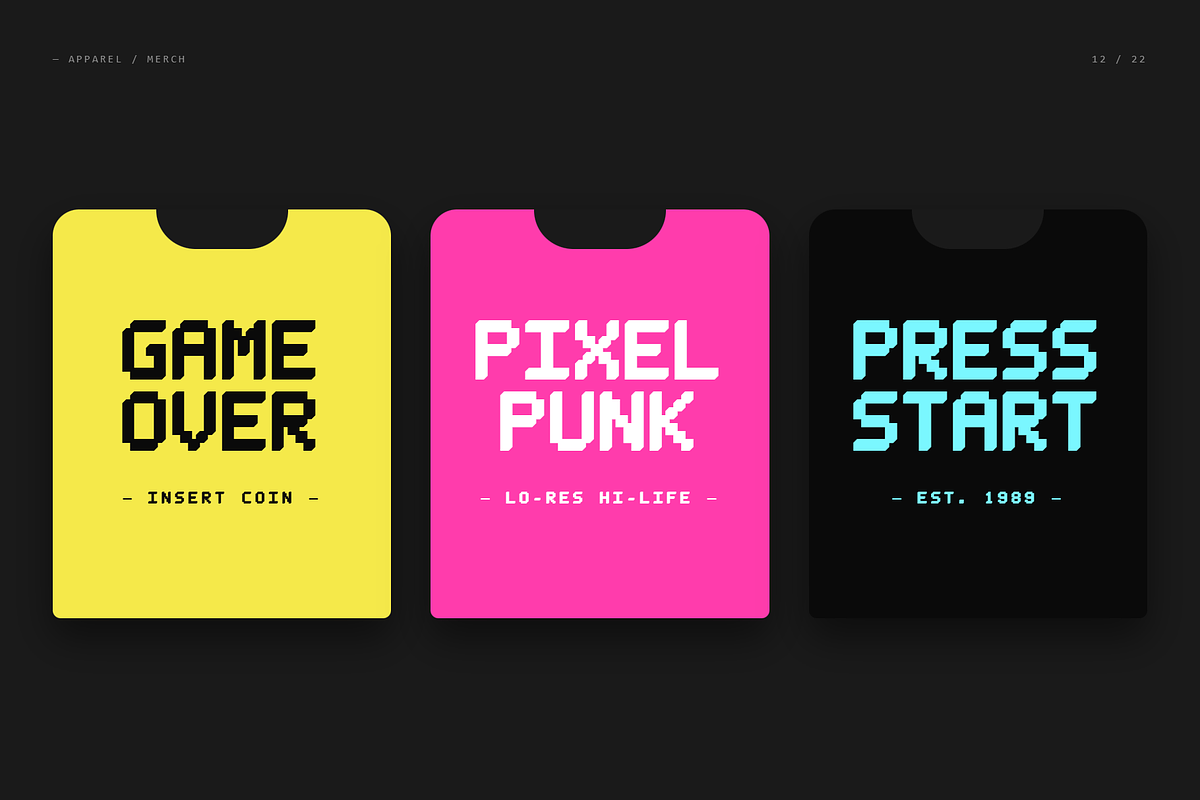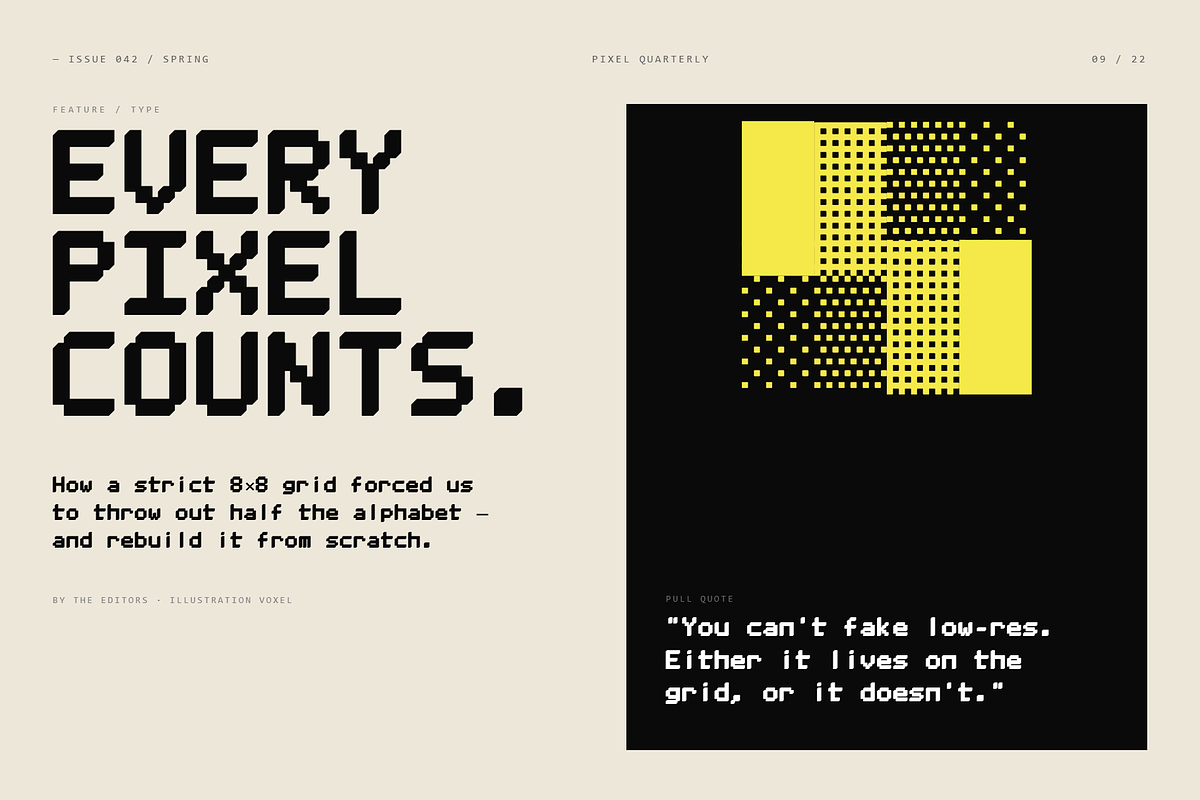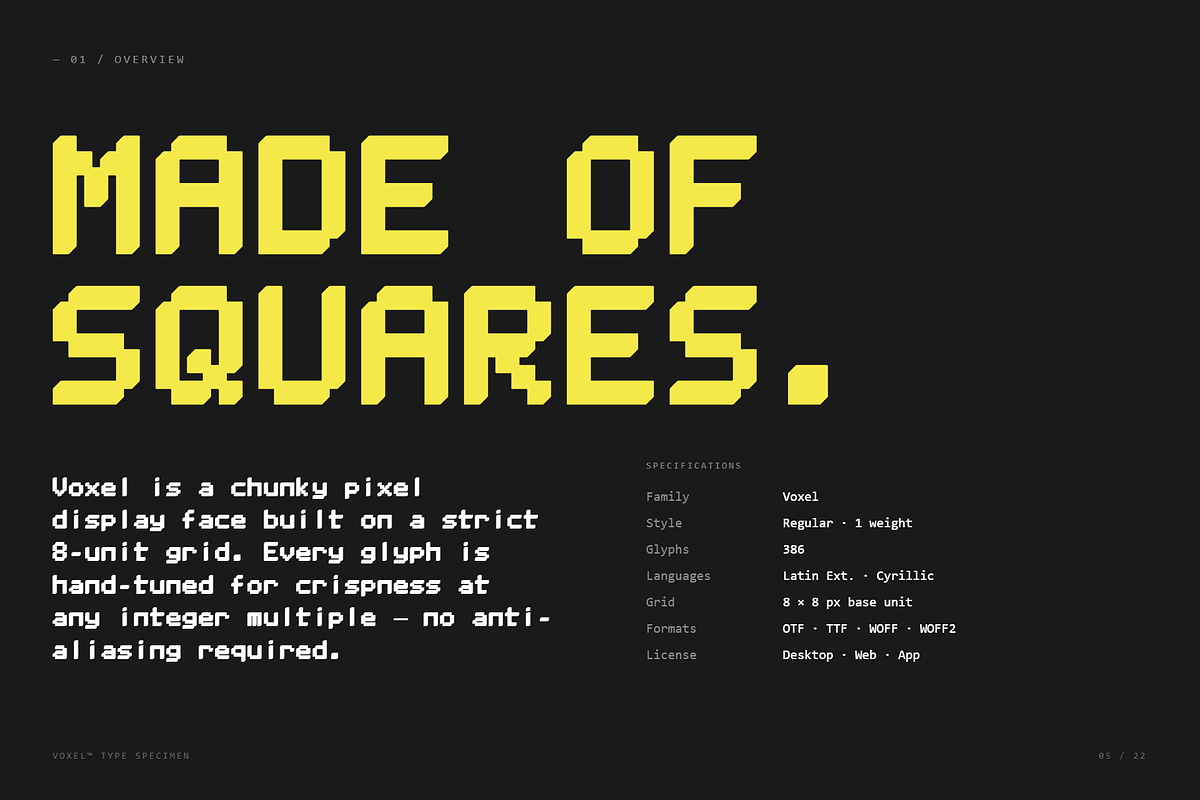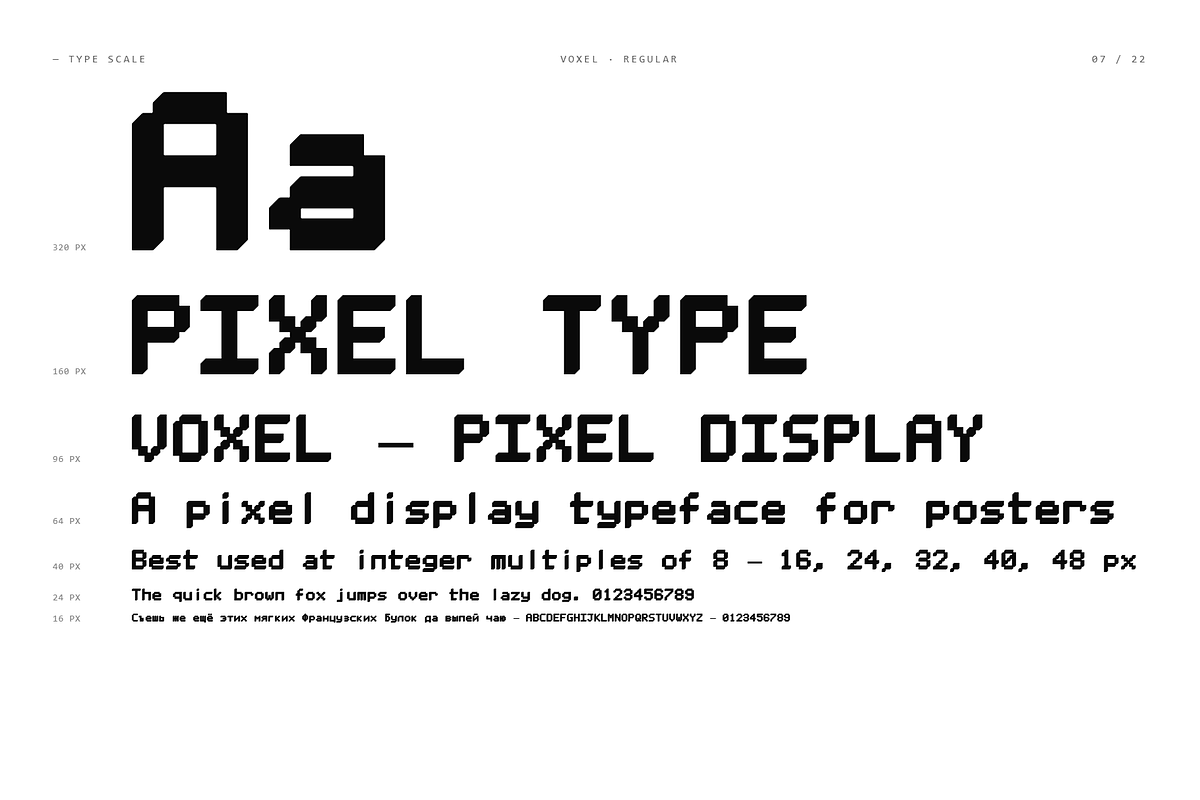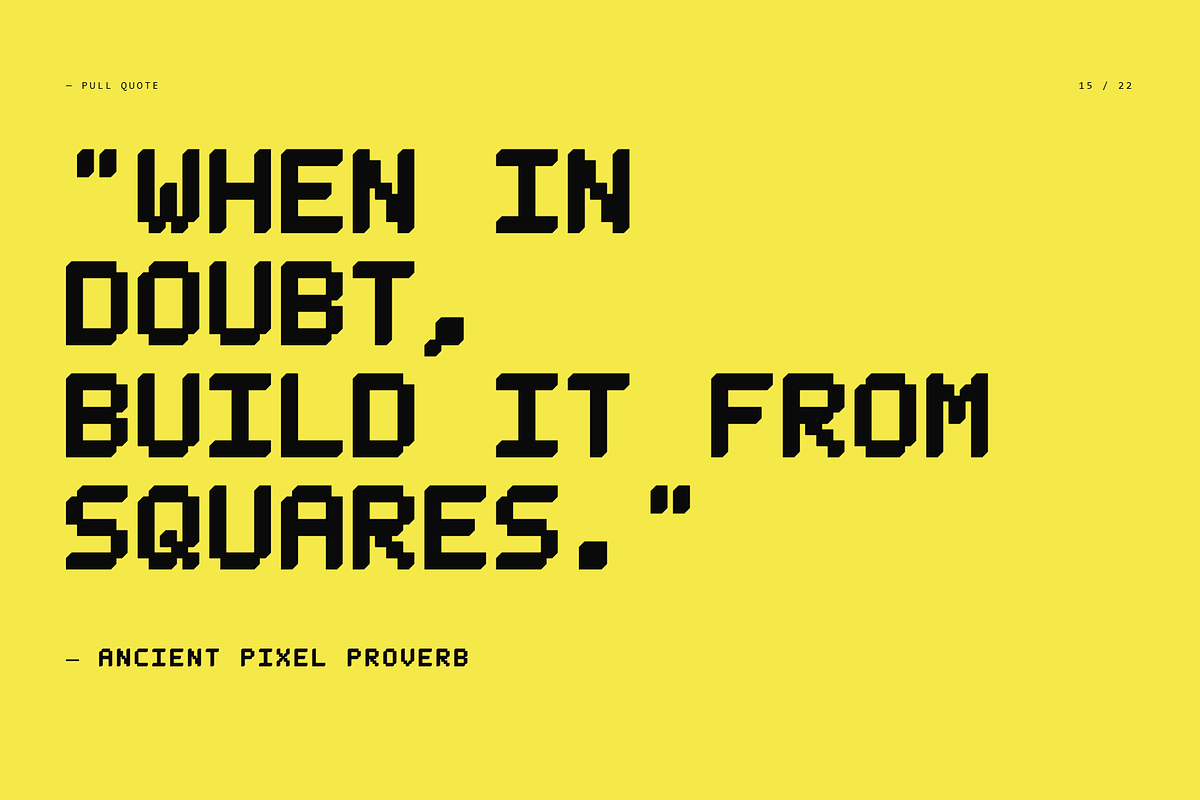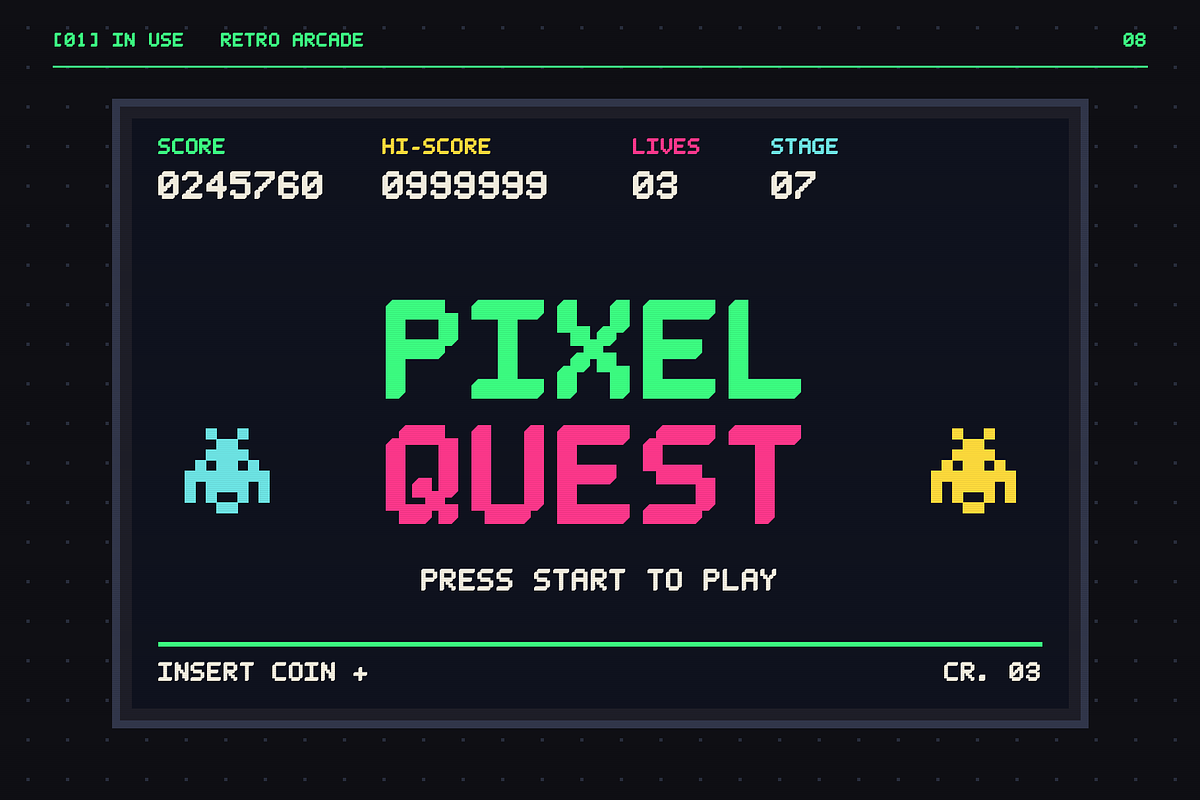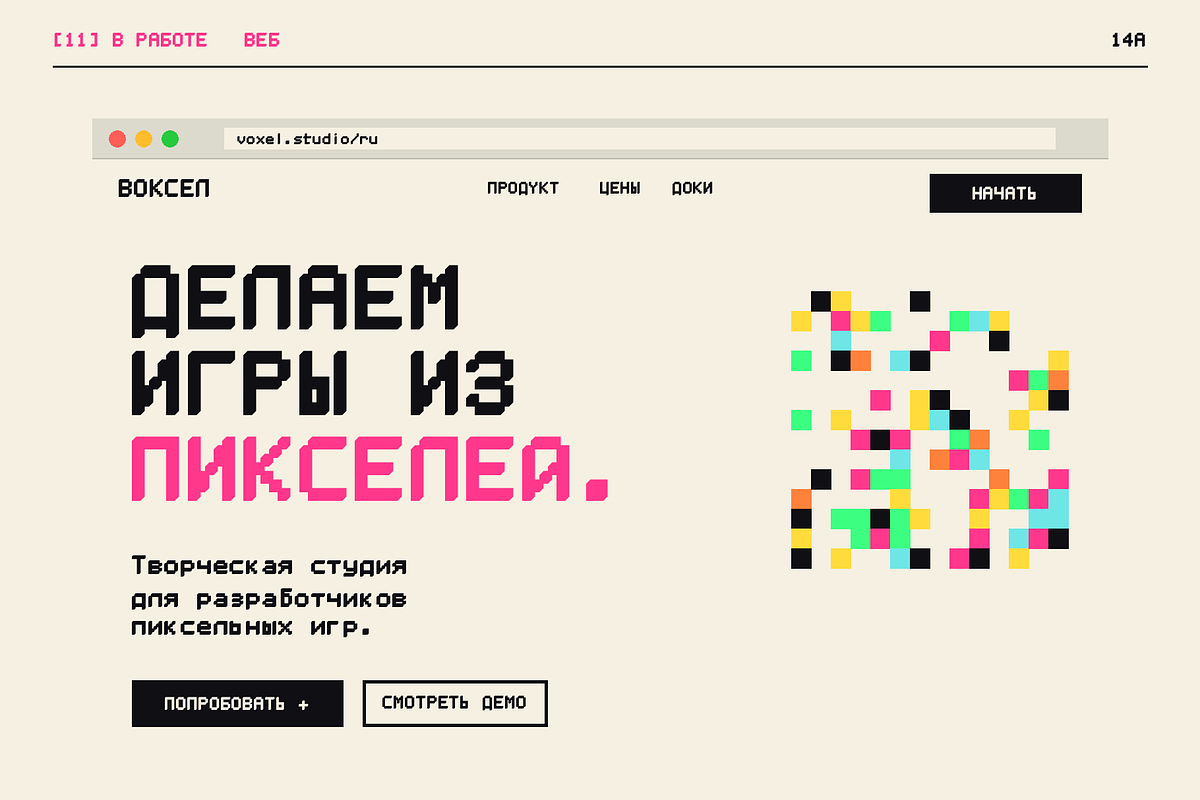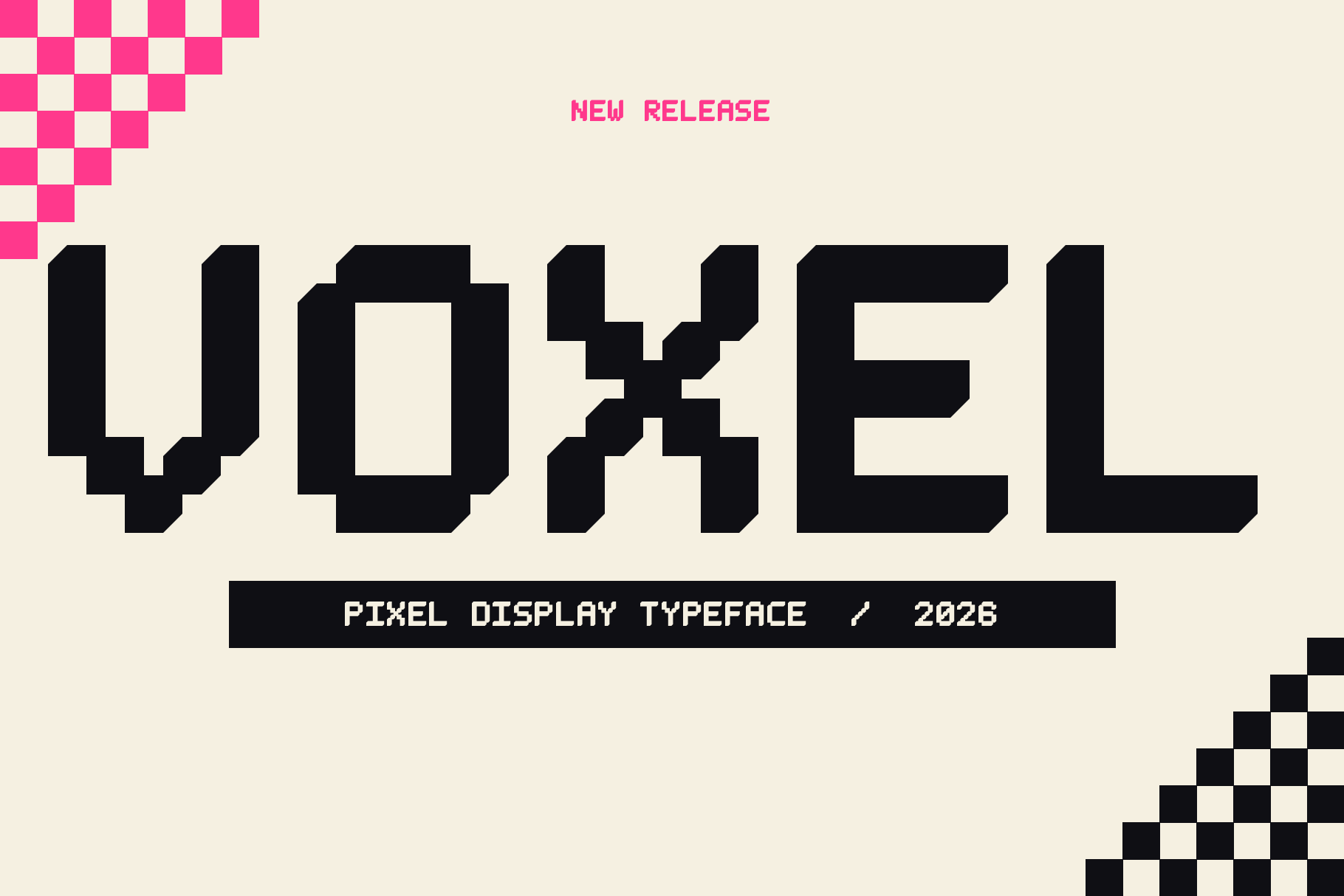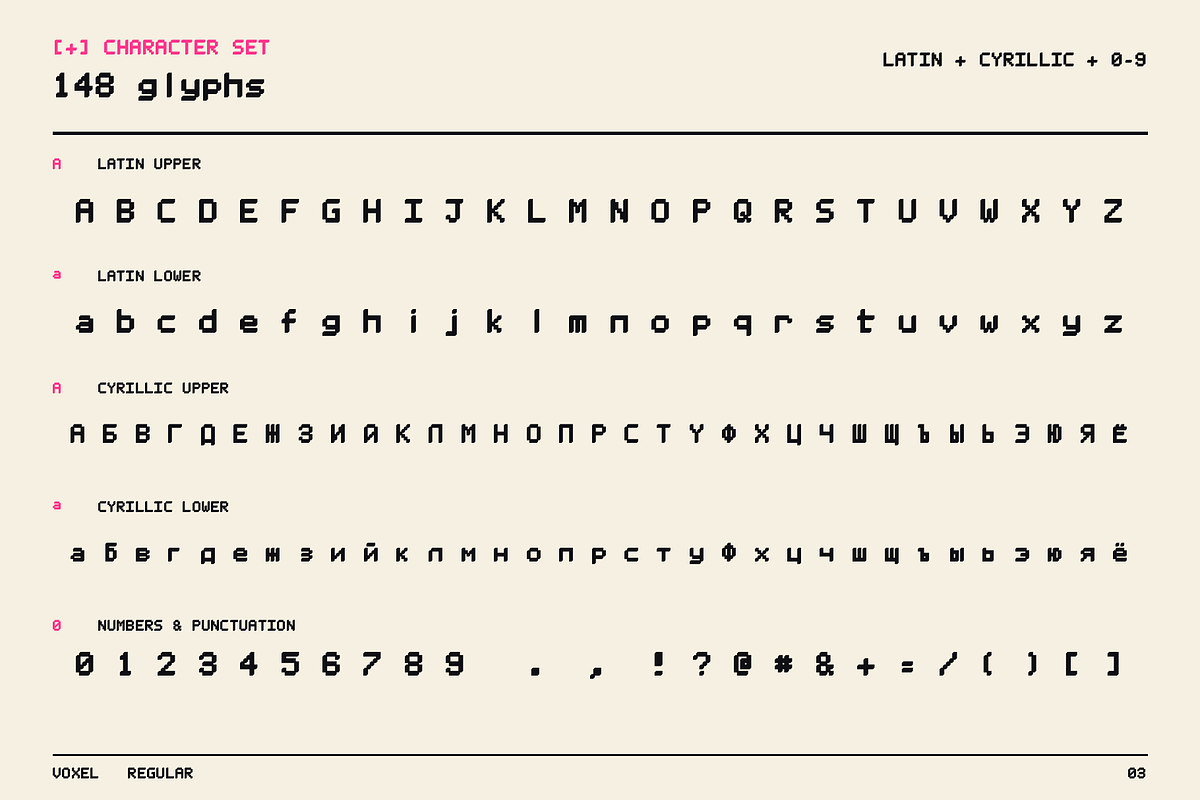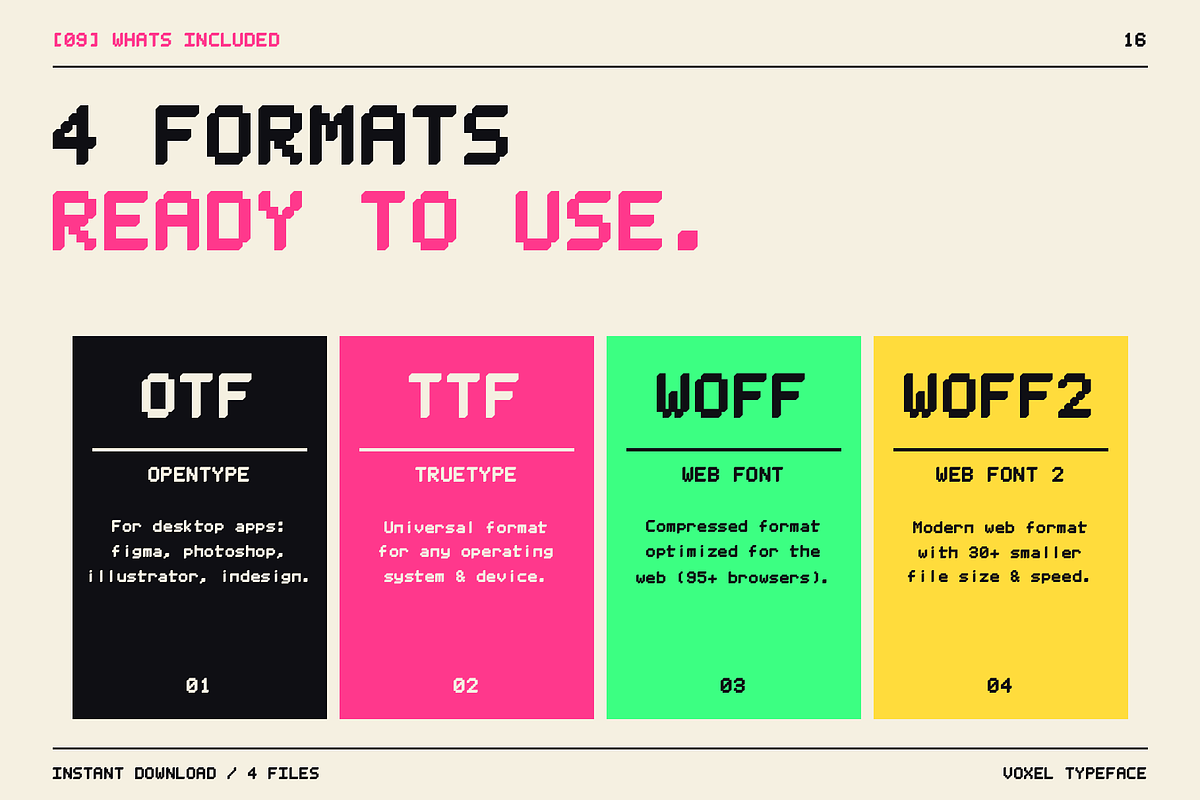
VOXEL - Pixel Display Typeface
Born from the glow of arcade screens and the grid of early computer displays, VOXEL is a pixel-perfect display typeface built for designers who love retro energy and modern precision in equal measure. Every glyph sits on a clean pixel grid — no anti-aliasing, no soft edges, no compromise. It stays crisp whether you scale it up for a billboard or drop it into a 16px UI label.
With full Latin and Cyrillic support and 140+ glyphs, VOXEL is ready for international projects right out of the box — game titles, posters, packaging, web heroes, album art, and everything in between.
- 1 style — Regular (bold-by-default pixel chunkiness)
- Uppercase, lowercase, numbers, punctuation, symbols
- Latin + Cyrillic alphabets
- Indie games, arcade titles, and game UI
- Synthwave, vaporwave, Y2K, and retro-futurist visuals
- Posters, editorial layouts, and album covers
- Web hero sections, landing pages, and app mockups
- Streetwear, stickers, packaging, and merch
- Cyberpunk, sci-fi, lo-fi, and terminal/code aesthetics
- Bold branding and signage that needs to grab attention